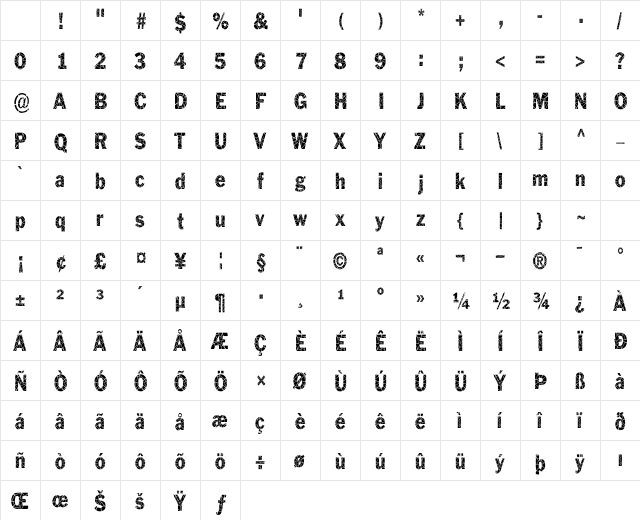
Philadelphia-Cracked-Condensed Normal
Philadelphia-Cracked-Condensed Family
Philadelphia-Cracked-Condensed Normal
Philadelphia-Cracked-Condensed Normal Font Preview
Philadelphia-Cracked-Condensed Normal Uppercase Preview
Philadelphia-Cracked-Condensed Normal Lowercase Preview
Philadelphia-Cracked-Condensed Normal Numeric Preview
Philadelphia-Cracked-Condensed Normal Character Map
Complete Philadelphia-Cracked-Condensed Normal glyph index. Displaying only characters natively supported by Philadelphia-Cracked-Condensed Normal font.
Design Context for Philadelphia-Cracked-Condensed
Philadelphia-Cracked-Condensed is a composed and adaptable typeface that performs quietly and consistently across a wide range of design contexts. Its narrow stance lets it pack a punch even in space-constrained designs.